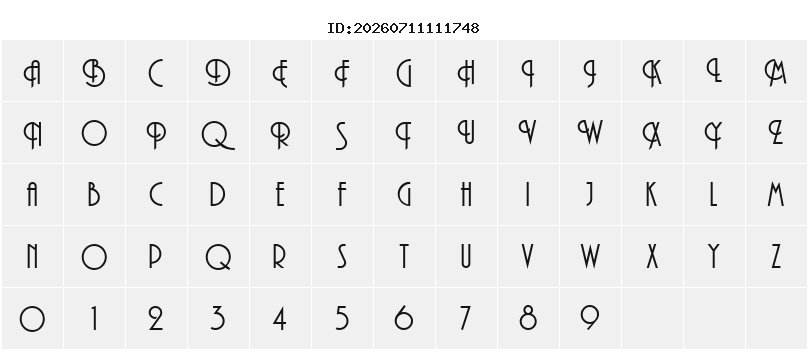
• Font Name: m_Andes Normal
• Full Font Name: m_Andes Normal
About m_Andes Normal.ttf
m_Andes Normal.ttf is a modern, elegant sans-serif font designed for ultimate readability and visual harmony. Perfect for branding, headlines, web design, and print materials.